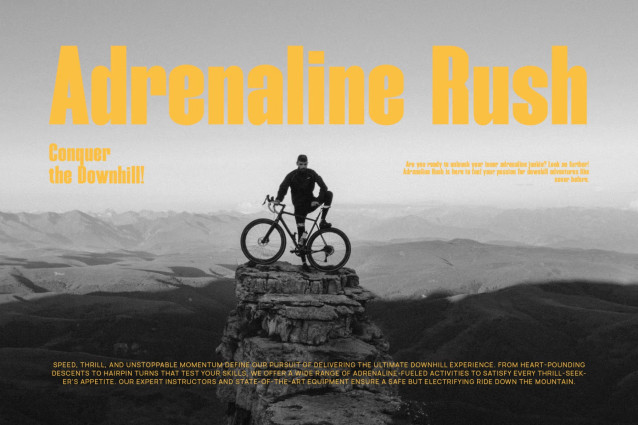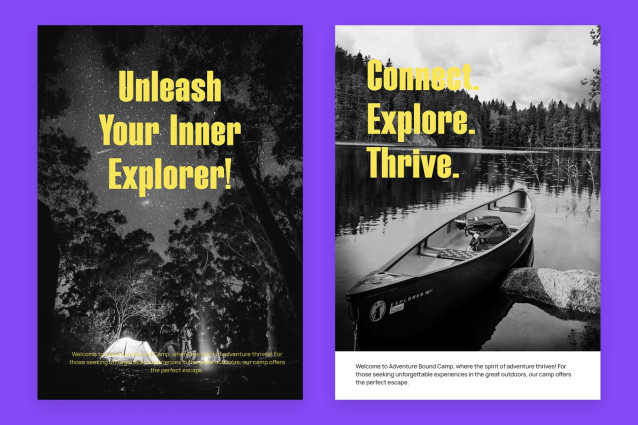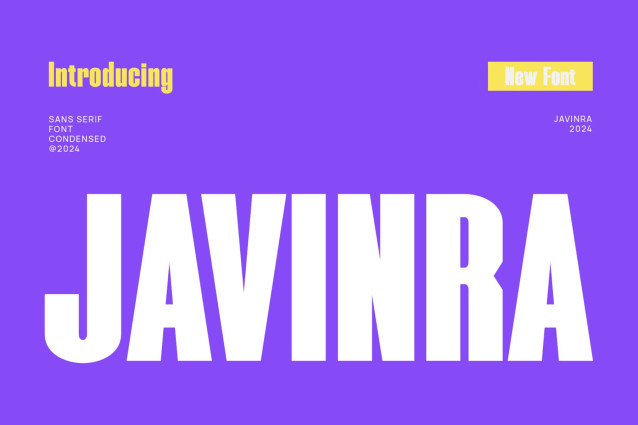
Javinra Font
Javinra Font, modern sans serif font with elegant style this is perfect for branding, logos, invitation, magazines, product packaging and more.